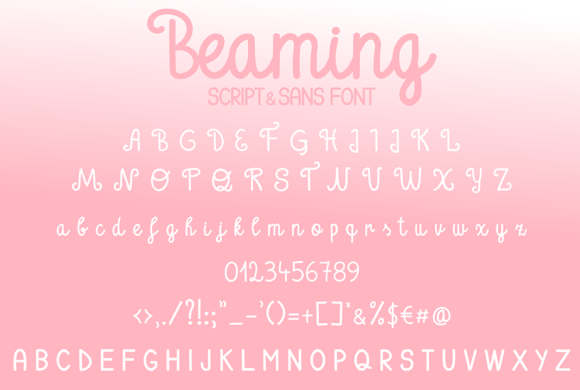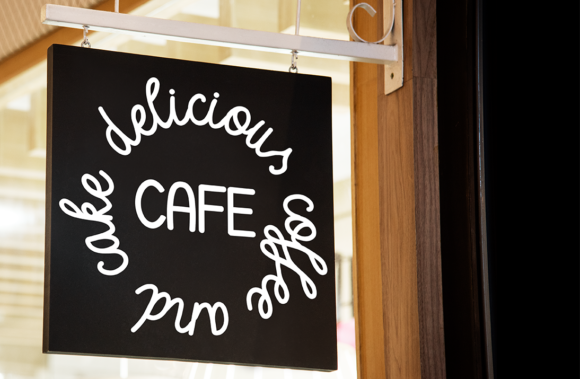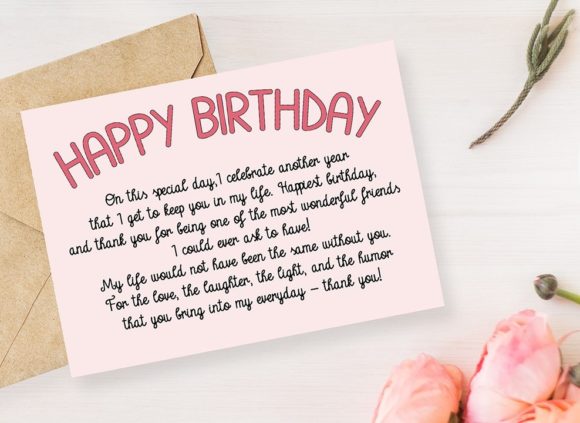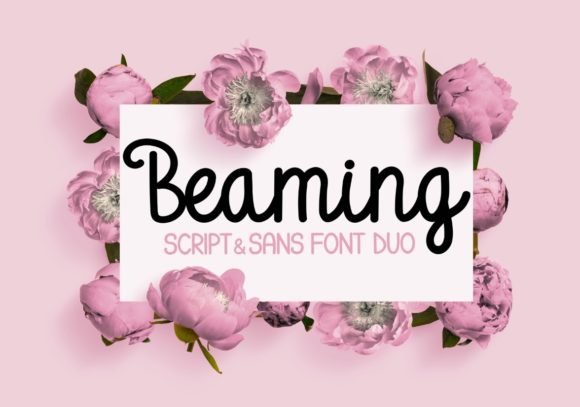
Introduction to Beaming Duo Font
Beaming Duo is a beautiful combination of fonts (sans serif and script).
Incredibly versatile, they fit a wide pool of designs, elevating them to the highest levels Add Beaming Duo to your favorite creative ideas and notice how it makes them come alive.